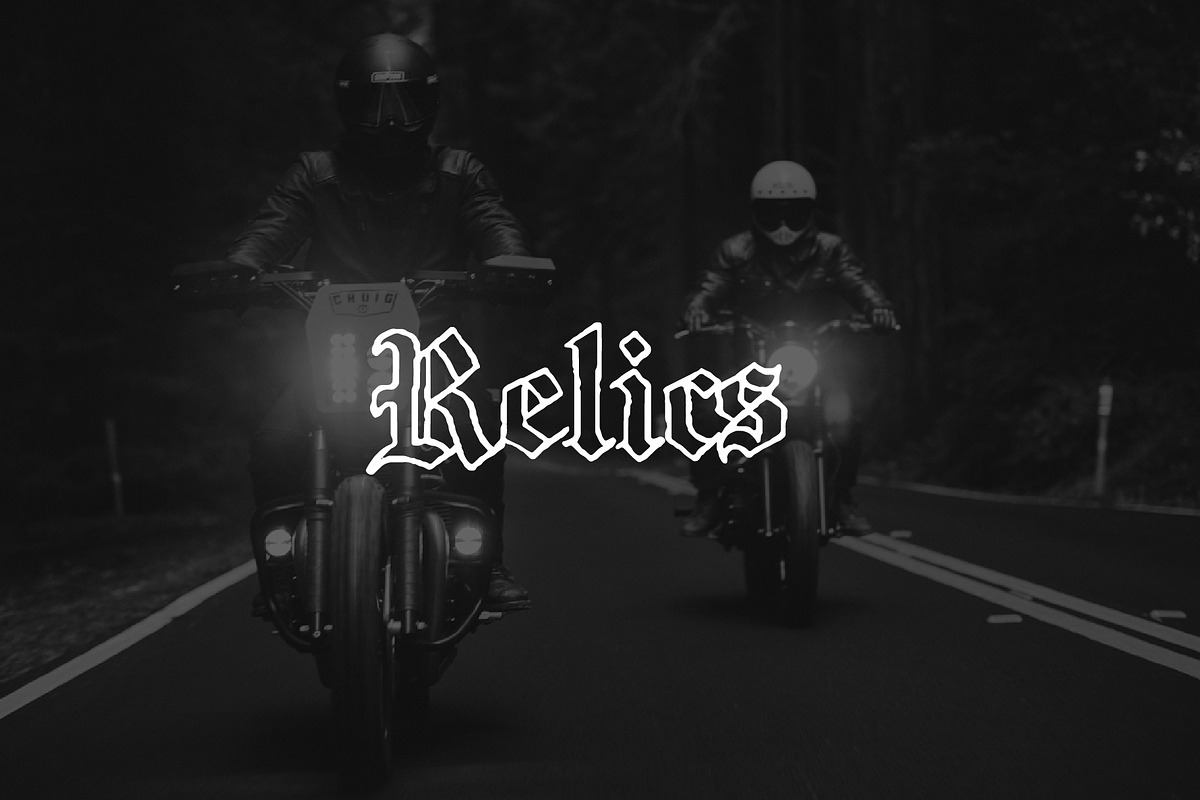
Please note, you must purchase this font for commercial use. However, you can easily download Relics - A New Age Blackletter Font Free Download for personal use and testing purposes. Relics - A New Age Blackletter Font is a modern twist on the classic blackletter style, blending traditional gothic elements with contemporary design. Perfect for projects that require an impactful, vintage aesthetic, this font is ideal for posters, branding, logos, tattoos, and any creative design that needs bold, historical character. The unique letterforms of Relics - A New Age Blackletter Font Free Download bring a distinctive edge to your typography, combining timeless elegance with a modern flair. Download Relics - A New Age Blackletter Font Free Download today and explore its potential before opting for a commercial license.